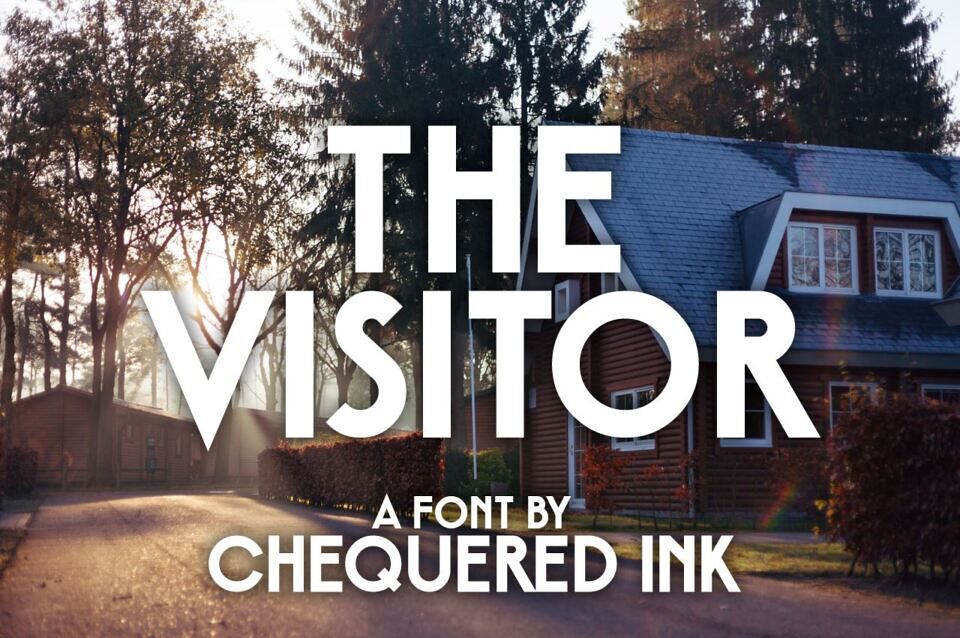
The Visitor is a retro-inspired display font designed by Chequered Ink. Featuring 160 glyphs and 216 characters, it blends Art Deco elegance with mid-20th-century charm, making it ideal for vintage-themed designs.